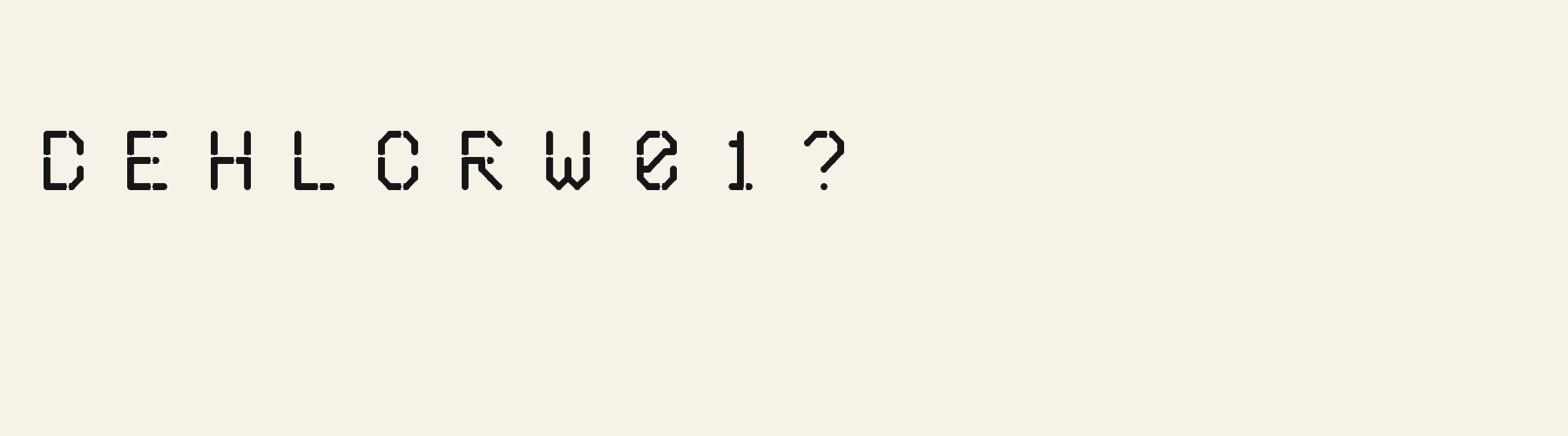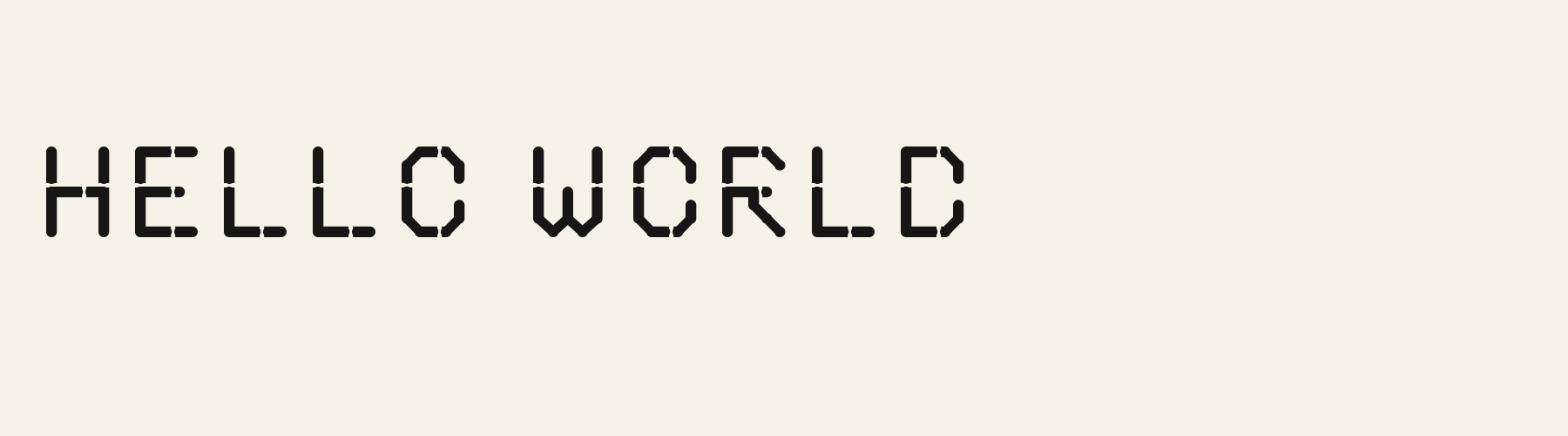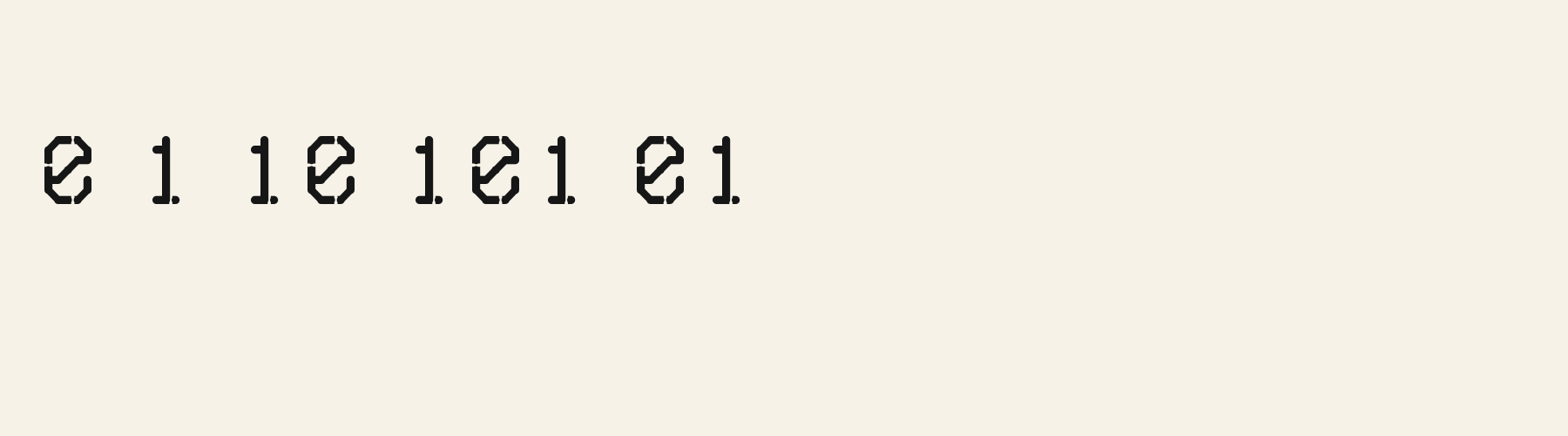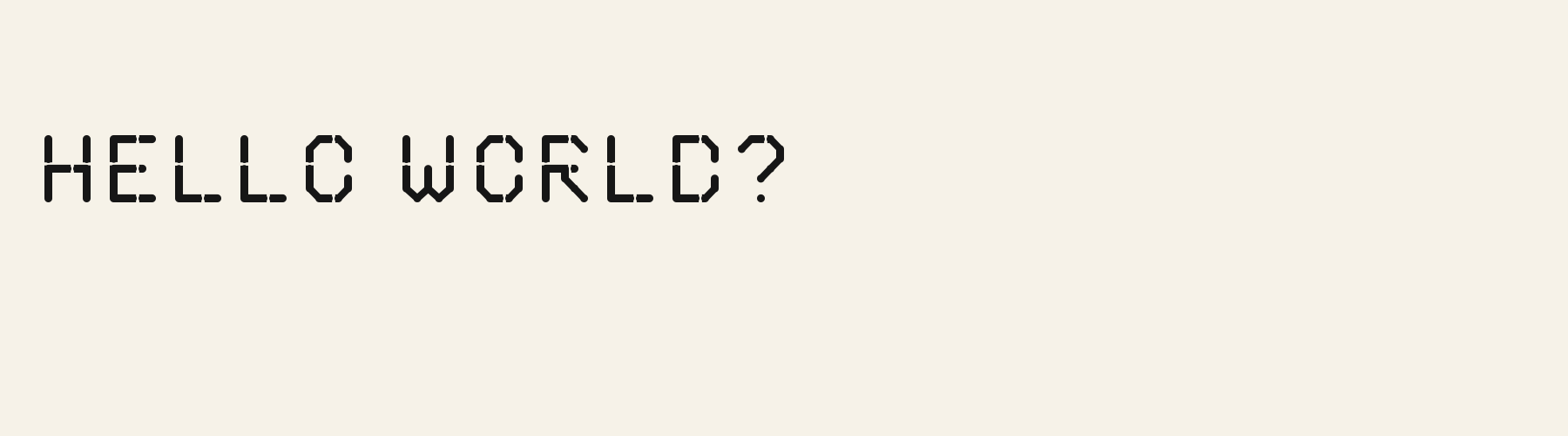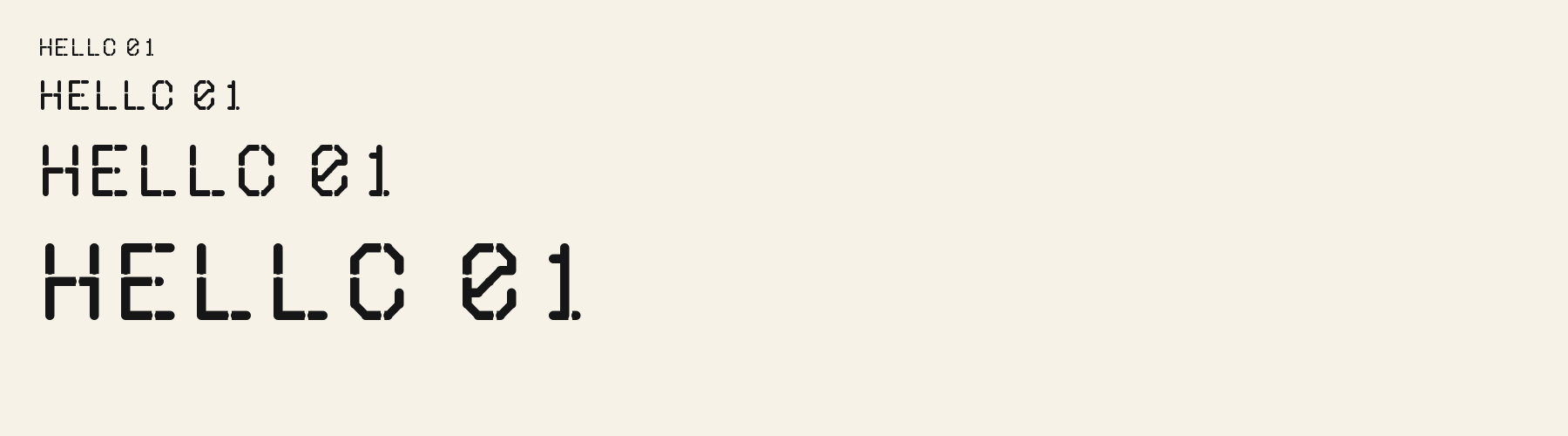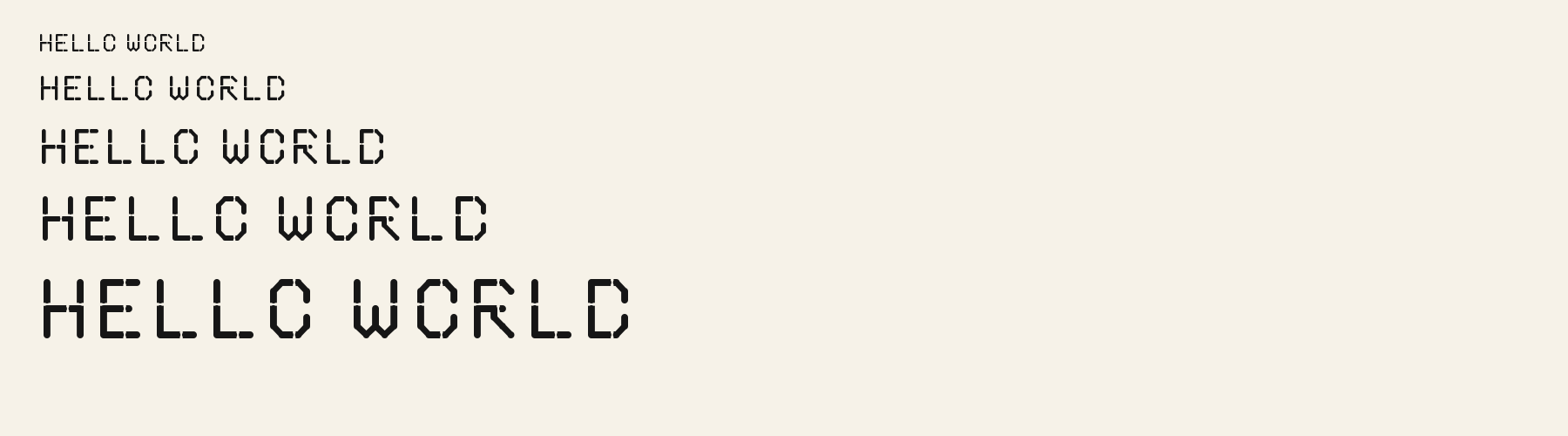
Stencil Arch Bridge Faceted Notch Display Font
Stencil Arch Bridge combines faceted bowls with rounded stroke endings, giving its architectural shapes a softer edge.
Faceted Notch Display Letterforms
Stencil Arch Bridge combines faceted bowls with rounded stroke endings, giving its architectural shapes a softer edge. The O has clipped outer corners and a matching angular counter, interrupted by a narrow gap across the top. The lowercase e carries a straight middle bar and a small break along its bottom stroke, while the capital M folds into a shallow central valley with a short downward stem. Even strokes keep the lettering calm and spare. Low lowercase bowls sit beneath tall ascenders, creating a stepped rhythm in mixed case; the generous surrounding space adds an airy, technical mood.
Check the gaps in O and e, the forked M, and descenders in your actual Latin wording at smaller and larger previews. Inspect punctuation and accented Latin letters separately; these specimens provide no basis for judging other scripts.
Try this face for short headings or prominent labels, with a quieter sans serif for supporting text. Conventional rounded bowls and uninterrupted strokes in the companion could balance the faceted outlines and repeated gaps visible here.
Compare the phrase as written with uppercase. The lowercase brings short faceted bowls and tall, footed l forms; uppercase creates a more even skyline and gives the angular W greater prominence.
In this uppercase phrase, Stencil Arch Bridge has rounded exposed terminals and a broad, open rhythm. Its clipped O and forked W retain an architectural feel with softer stroke endings.
Stencil Railway Bold gives the same uppercase phrase narrower proportions and square stroke endings. Its taller-looking O and closely packed W create a more compressed, rigid rhythm.
Shop sign. Upright capitals and clipped corners give a hall sign a structured character, while rounded terminals soften the overall impression. Open Structures
Poster. Low lowercase bowls and tall ascenders create a varied skyline that gives a short exhibition title visual interest. FIELD KIT
Product label. Even strokes and narrow interruptions bring an orderly, utilitarian accent to a brief product name on packaging.
Its lowercase sits low: the x-height is 70.6% of the cap height, where the median for stencil fonts is 74.2%, lower than 12 of the 14 other stencil fonts. Ascenders on b, d, h, k and l line up with the capitals (100% of their height), and descenders on g, j, p, q and y drop 29.4% of the cap height below the baseline, deeper than 12 of the 14 other stencil fonts. Stencil Arch Bridge runs 17.6% wider than the median for stencil fonts: an average lowercase letter, spacing included, is 96.7% as wide as the capitals are tall (an average capital, 97.2%). The o is close to a circle, 0.98 times as wide as it is tall, and M and W are the widest capitals, at 1.12 times the width of H. O stands exactly as tall as H and sits on the baseline, with no overshoot.
The letters stand upright, leaning less than 2.5° either way. Vertical stems measure 11.8% of the cap height, lighter than 11 of the 14 other stencil fonts. Ink covers 23.4% of each lowercase letter's box (its advance width by the cap height), the lightest of all 15 stencil fonts. Strokes keep one thickness in every direction: the sides of o and O measure the same as their tops and bottoms.
Its 334 characters include 291 Latin letters, plus 43 figures, punctuation marks and symbols; 239 of the Latin letters are accented or special forms beyond A to Z. The word space measures 47% of the cap height, and the blank space either side of a lowercase letter takes up 32.4% of its width. The font carries no kerning, so spacing comes from each letter’s own side bearings. All ten figures share one width, so columns of numbers line up.